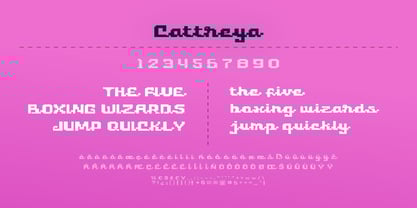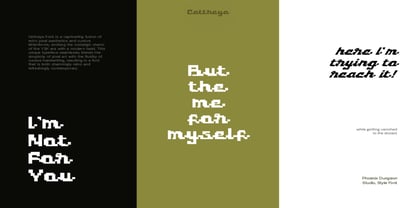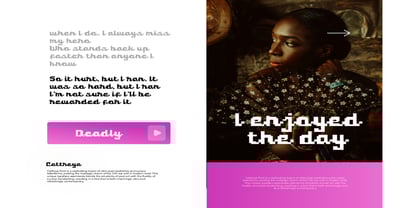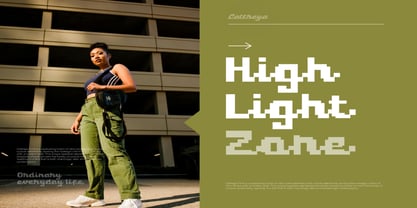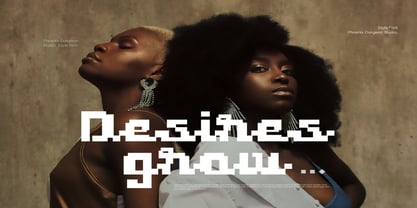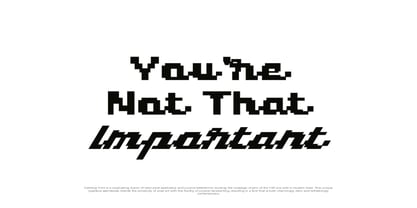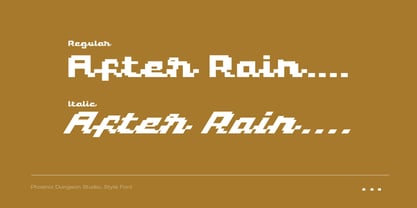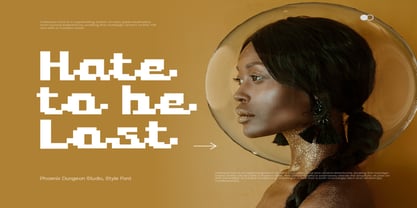
Cattreya
by Phoenix Group
The Cattreya Font Family was designed by Alif Naufal Muzakki and published by Phoenix Group. Cattreya contains 2 styles and family package options. More about this family
Cattreya Font is a captivating fusion of retro pixel aesthetics and cursive letterforms, evoking the nostalgic charm of the Y2K era with a modern twist. This unique typeface seamlessly blends the simplicity of pixel art with the fluidity of cursive handwriting, resulting in a font that is both charmingly retro and refreshingly contemporary.
Designers: Alif Naufal Muzakki
Foundry: Phoenix Group